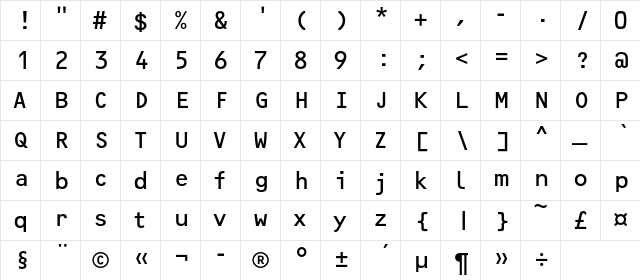
OCRF-RegularC Regular
Design Context for OCRF-RegularC Typeface
OCRF-RegularC takes a measured approach to typography — its balanced proportions and neutral character make it a reliable workhorse for both digital and print work.